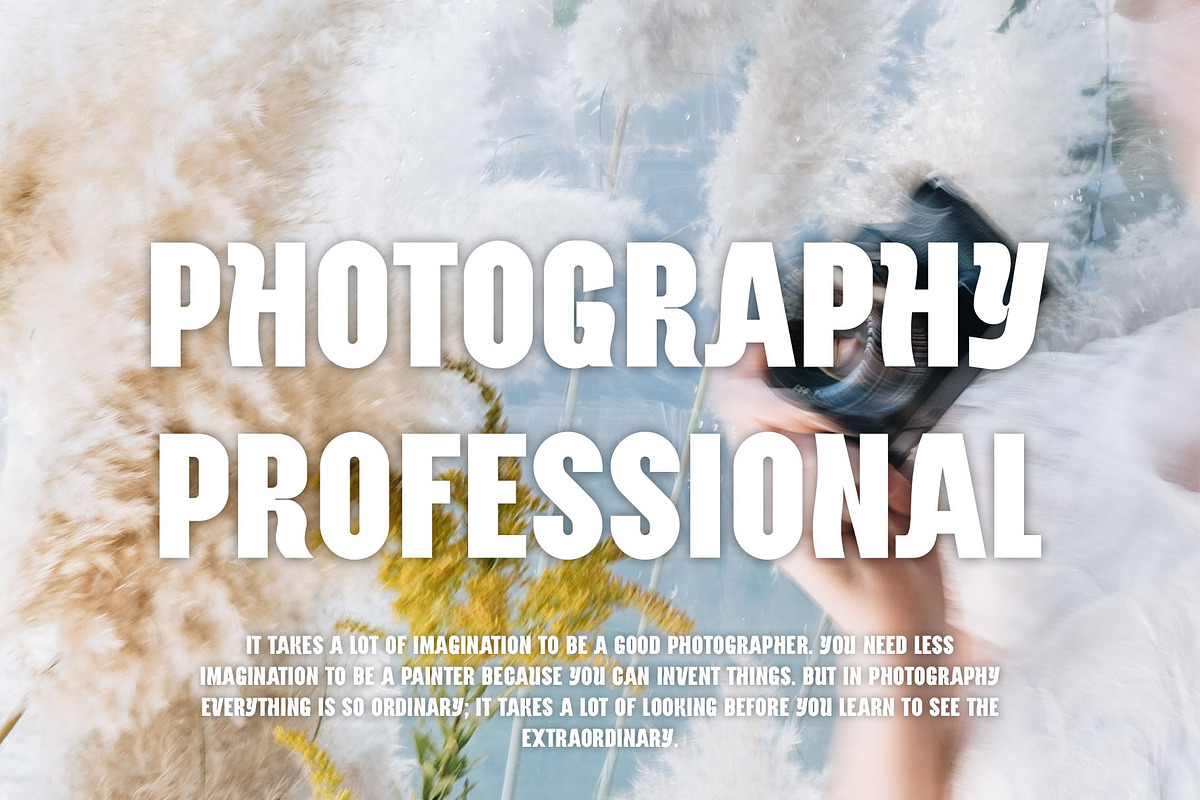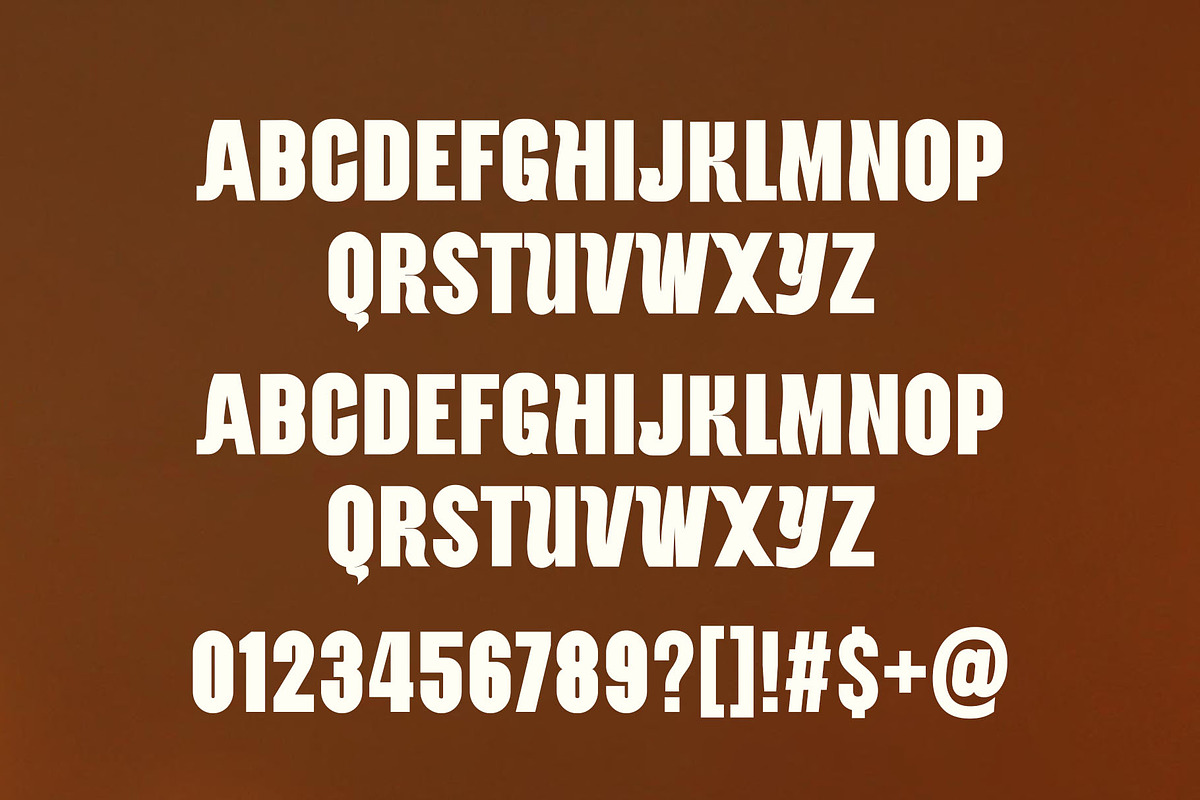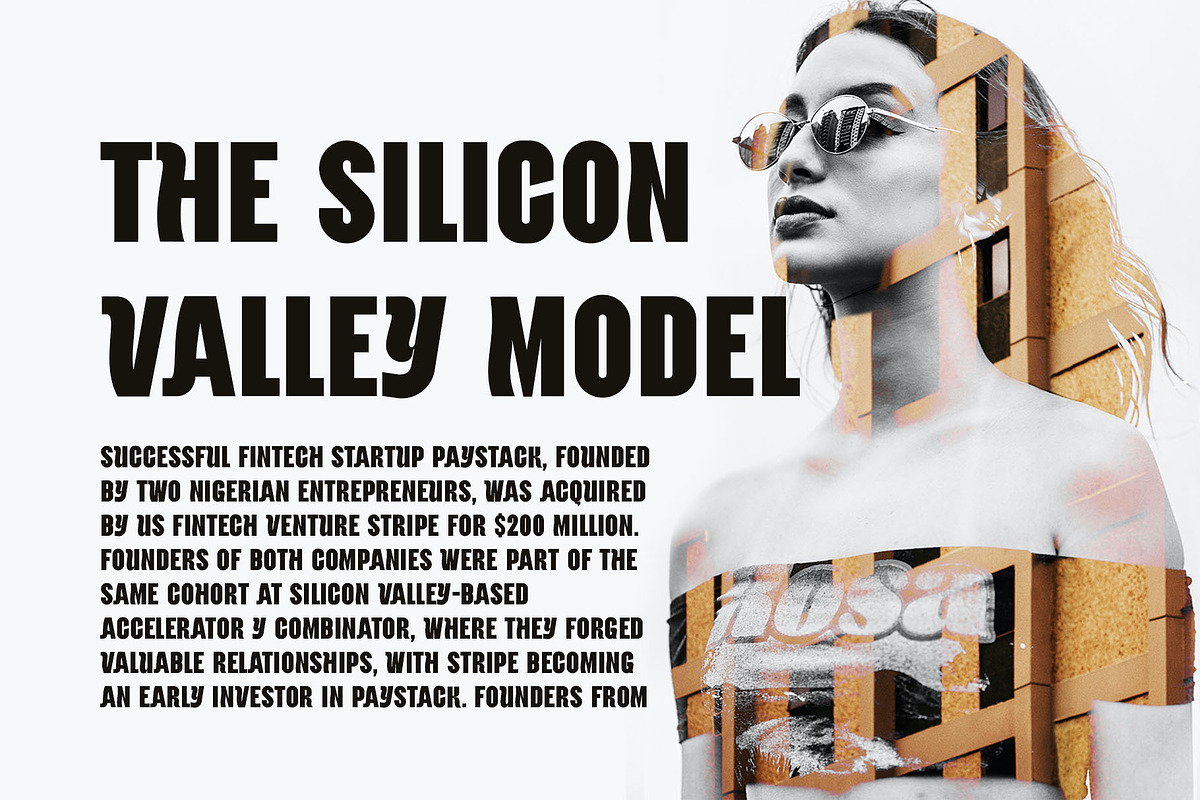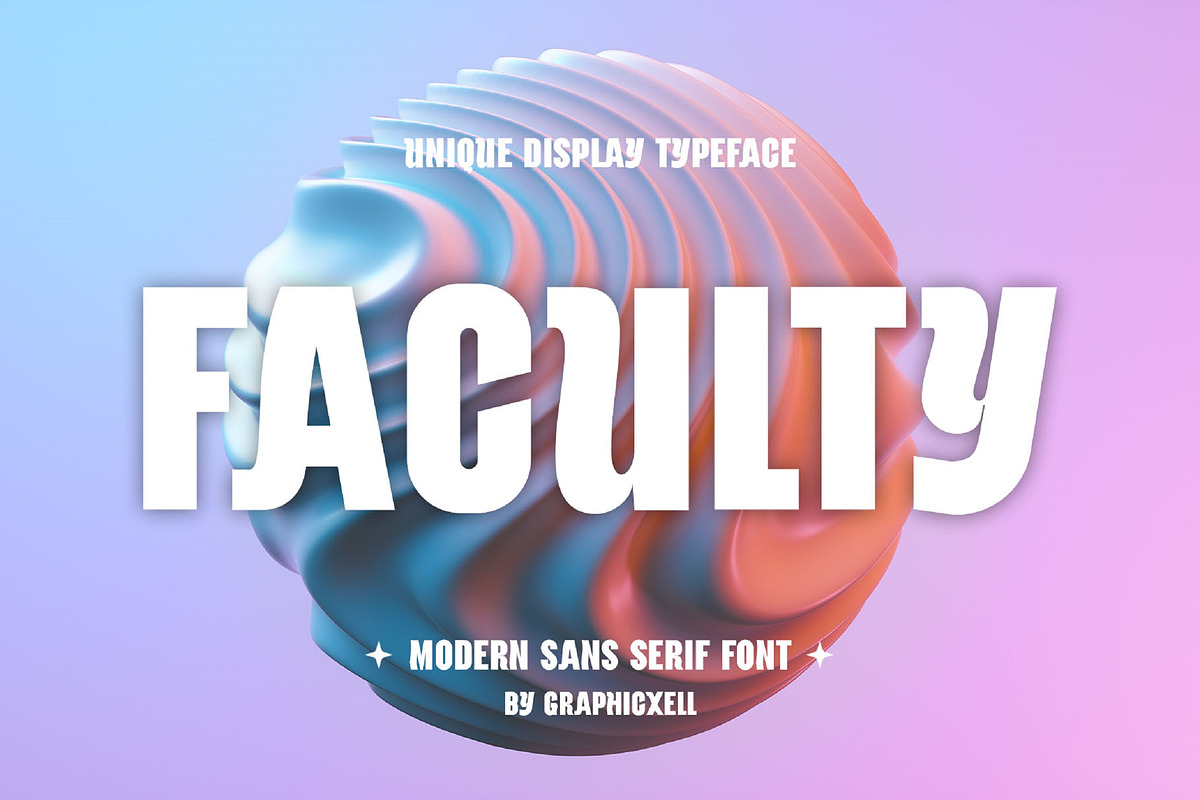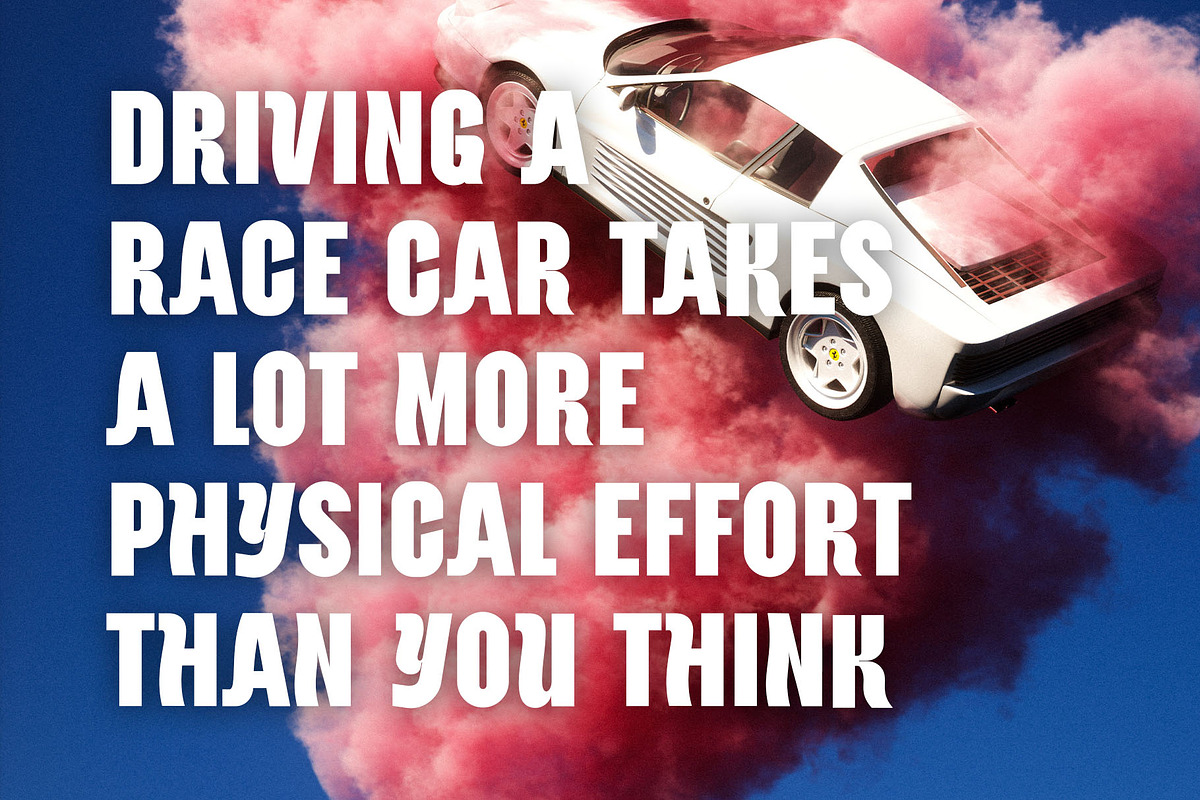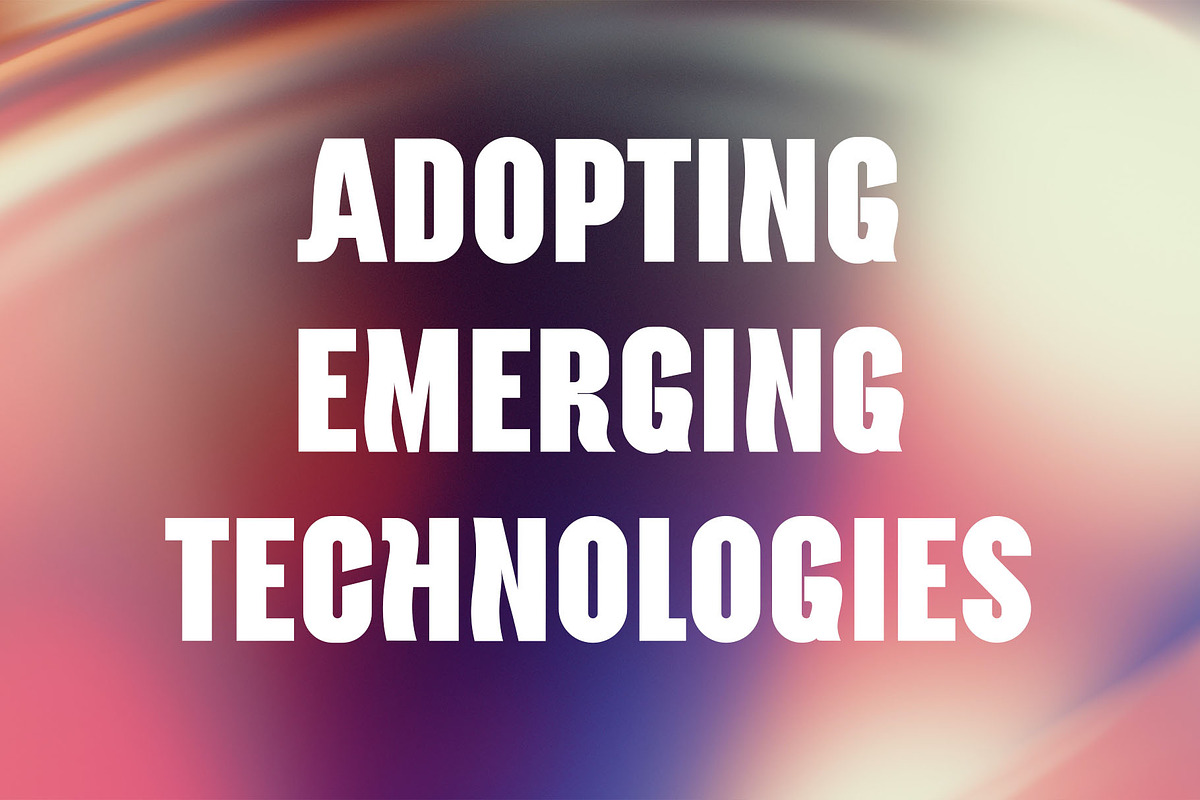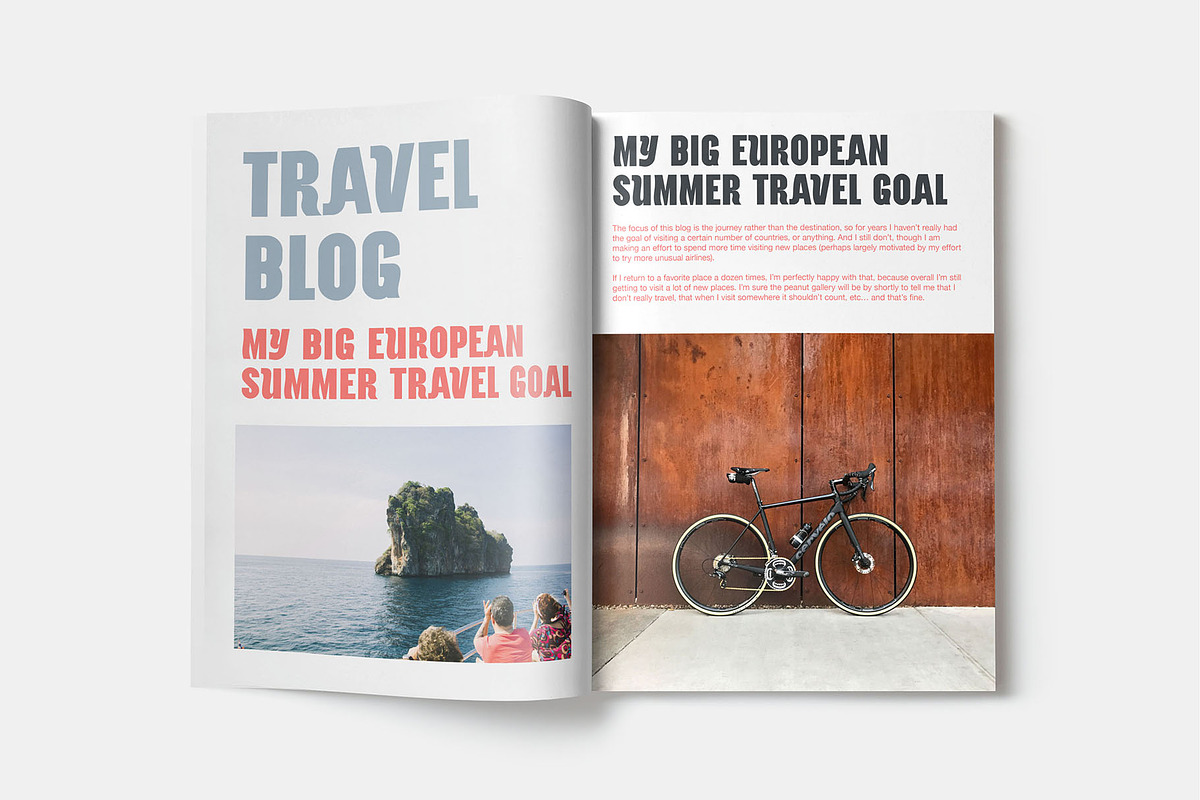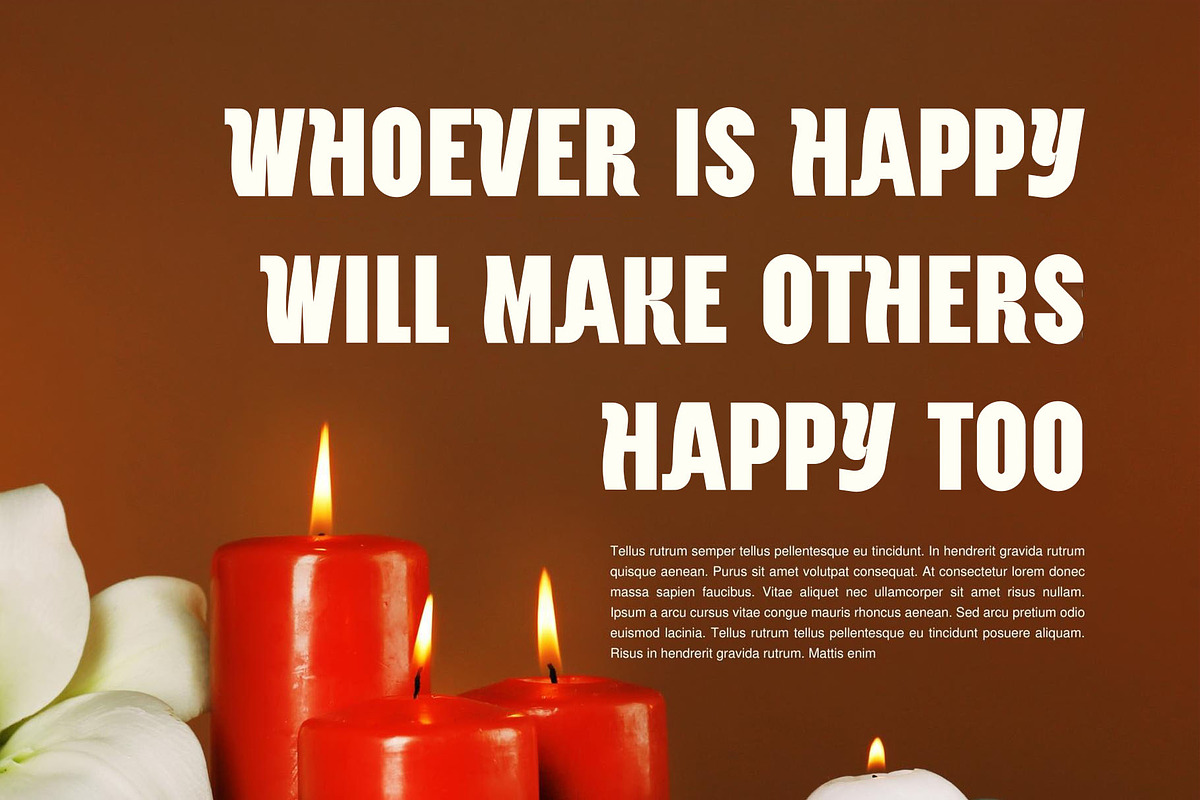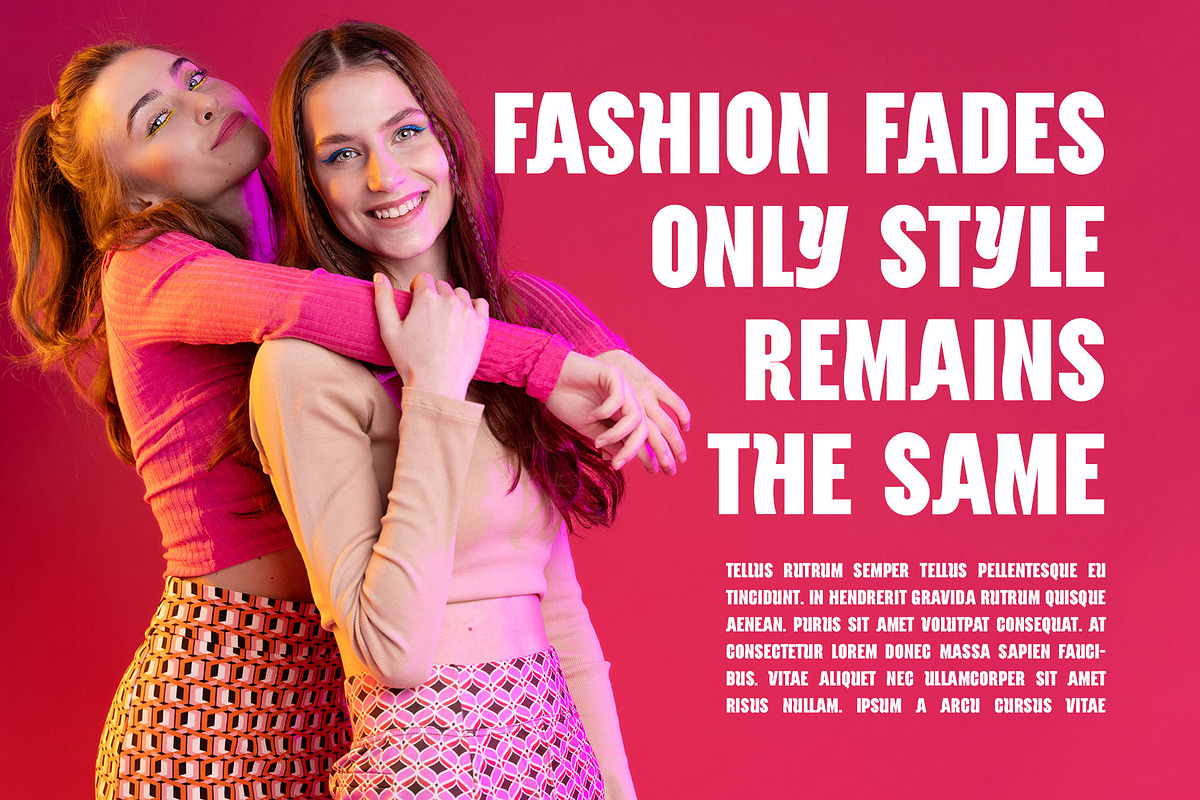
Faculty Modern and Unique Sans Serif
Faculty Modern and Unique Sans Serif is a rational, warm, and robust sans serif font. Authoritative, clear, and functional, this font still has high character. The strokes are cut horizontally or vertically to minimize inter-letter gaps and lend it an even beauty. With a minimal design, it has a professional look. Even though it is not symmetrical, the letterforms look balanced. Besides that, it combines uniqueness and modernity to impress the audience. This sans serif font also comes with subtle contrast and contours, creating a precise proportion. The shapes give an elegant look without compromising on minimalism. Of course, it ensures that any graphic design project will increase its appeal with this font. By applying it, your post templates, layout designs, or logos will charm everyone. Because of its versatility, just feel free to use this sans serif font for your own purposes. Hope it meets your expectations!